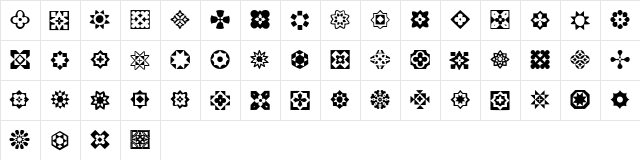
Italian Mosaic Ornaments Regular
Design Context for Italian Mosaic Ornaments Typeface
Italian Mosaic Ornaments is built around its visual character rather than neutral utility — its distinctive forms are designed to make an impression at display sizes.
Font Pairing: Pair with a clean neutral sans-serif for body copy to let Italian Mosaic Ornaments's character lead without overwhelming the composition.
Pro Tip: Treat Italian Mosaic Ornaments as the centrepiece of your typographic hierarchy. One strong heading set in a decorative face can carry an entire layout.